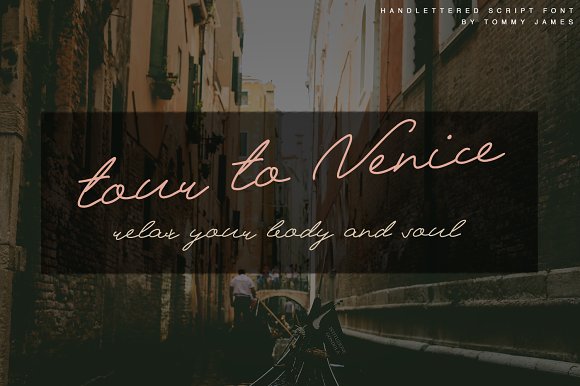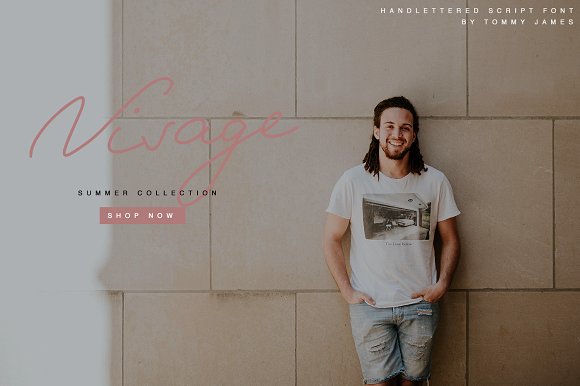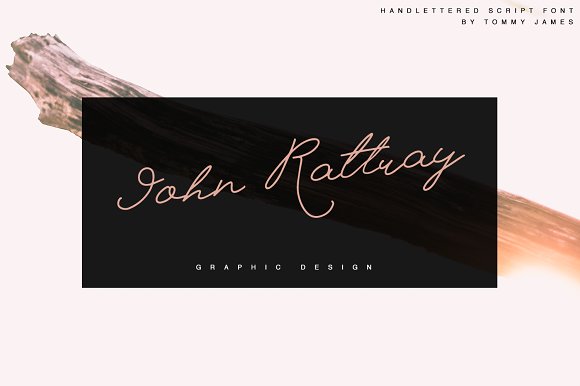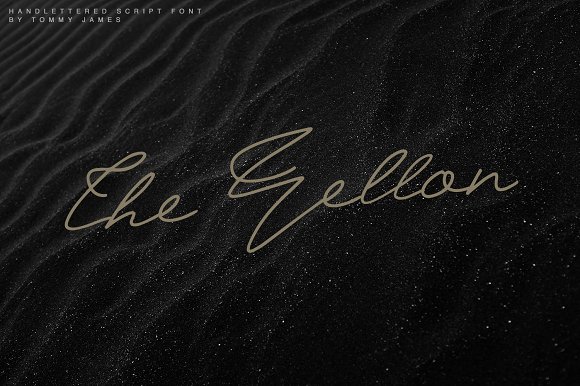
The Yellon Font
The Yellon – a new fresh handmade calligraphy font.
Very suitable for greeting cards, branding materials, business cards, quotes, posters, and more!This font are perfect for wedding postcard. Or you can create perfect and unique design of your logo, blog, stationery, marketing, magazines and more